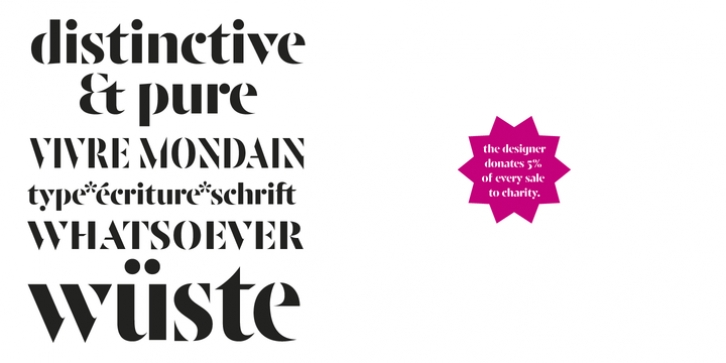
Zucker is an extreme point of type. It is an artifact of neo-classic times (enlightenment) with its beautiful types like Bodoni, Walbaum and Didot. The fineness of copperplate engraving is now replaced by digital accurateness. But it is like the reproduction technique couldn't keep up with the letters and all connections are dissolved. The leftover is a visual experiment, the reader completes the type.